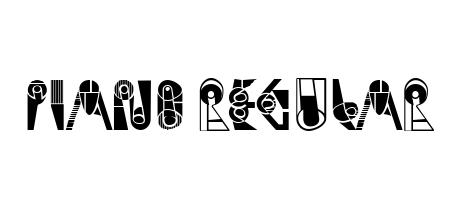
Piano
Piano Regular is a bold, geometric sans-serif font. Its letters are deconstructed and rebuilt with sharp, angular forms, creating a playful yet sophisticated feel. The design uses negative space effectively, adding a touch of modernity and intrigue to each character. It's a font that perfectly balances structural rigidity with unexpected visual twists.